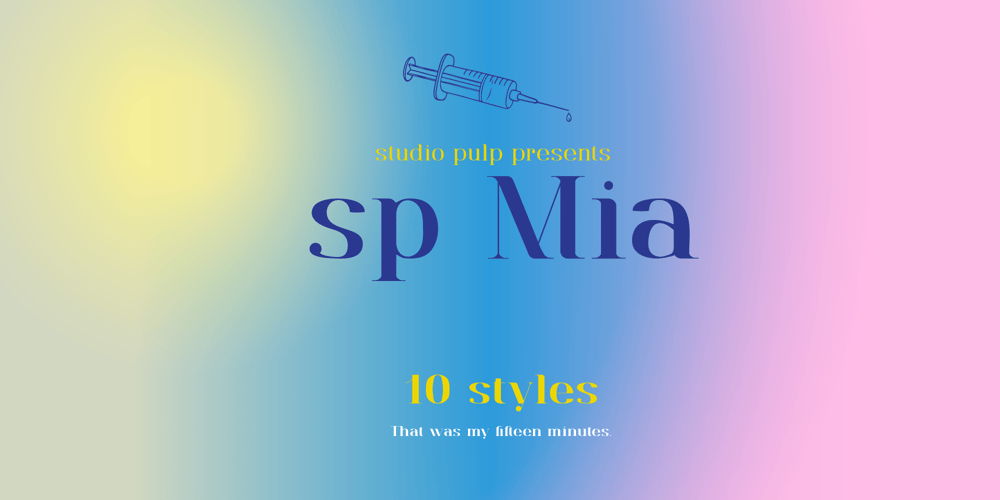
SP Mia Font Family was designed by Roel Dierckens and published by Studio Pulp. SP Mia contains 10 styles and family package options. Discover the alluring elegance of SP Mia, a refined serif font developed by Studio Pulp in 2023. Inspired by the intriguing character Mia Wallace from the film classic “Pulp Fiction” (1994), this serif font comes in 5 weights with both regular and italic variants, offering a beautiful interplay of lines for a graphic masterpiece. Rooted in the legacy of Mia Wallace, SP Mia exudes a timeless aesthetic. The variable thickness adds dynamism and visual interest, allowing each composition to tell a captivating story. This serif font embodies the perfect balance between modernity and classic finesse, making it an essential element for projects seeking style and depth. Transform your typographic creations with SP Mia and leave a lasting impression, reminiscent of the memorable moments from “Pulp Fiction.”